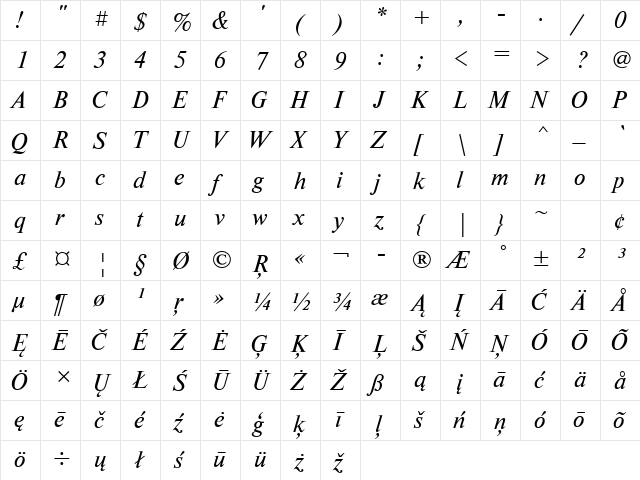
NewtonBTT Italic
Design Context for NewtonBTT Typeface
NewtonBTT is a composed and adaptable typeface that performs quietly and consistently across a wide range of design contexts. Its italic angle brings a sense of urgency and motion to the letterforms.
Pro Tip: Use NewtonBTT for emphasis, pull quotes, and subheadings where its slanted energy can add rhythm to the layout.